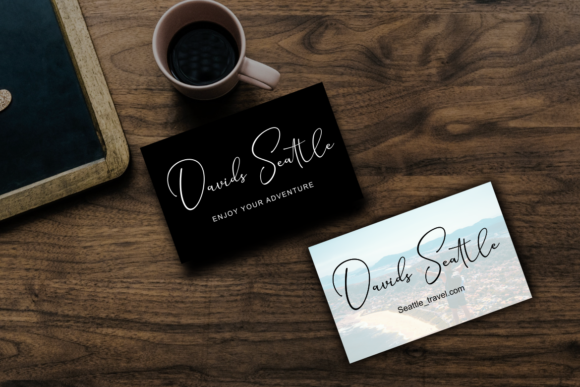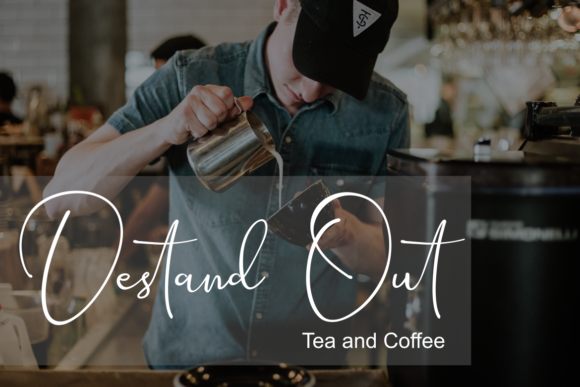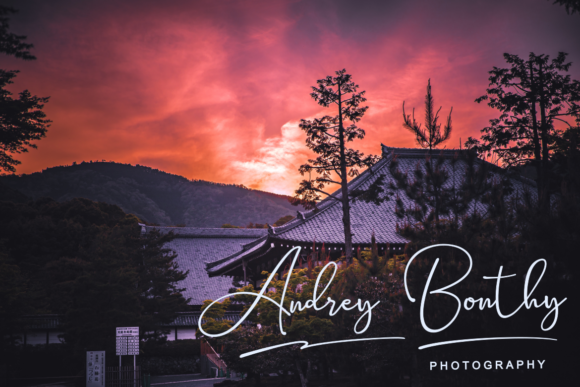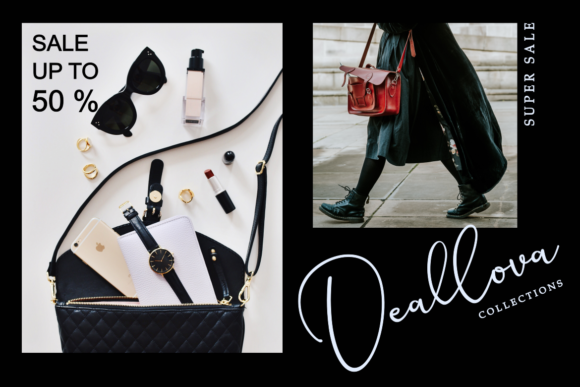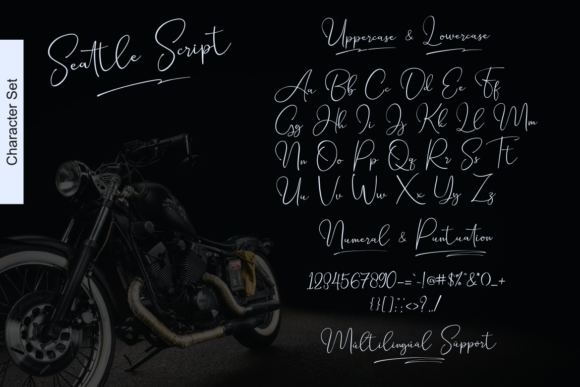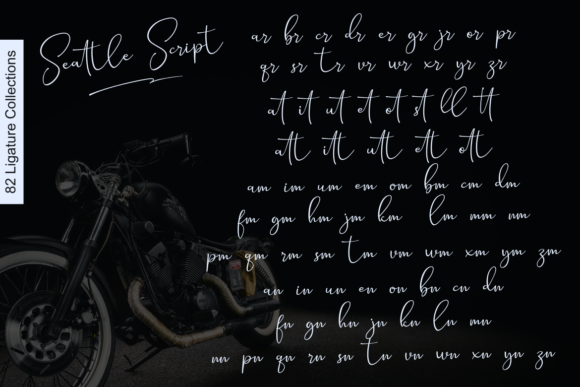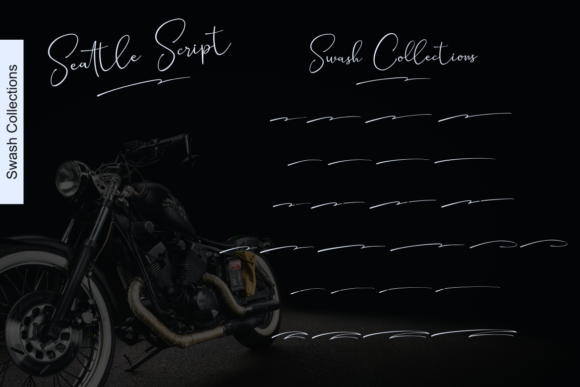
Seattle Script Font
About Seattle Script Font
The Seattle is an amazing handwritten script font. It has a personal touch which will add an amazing look to your designs.
It can be used for logos, wedding designs, social media posts, advertisements, product packaging, and every other design that needs a handwritten touch.